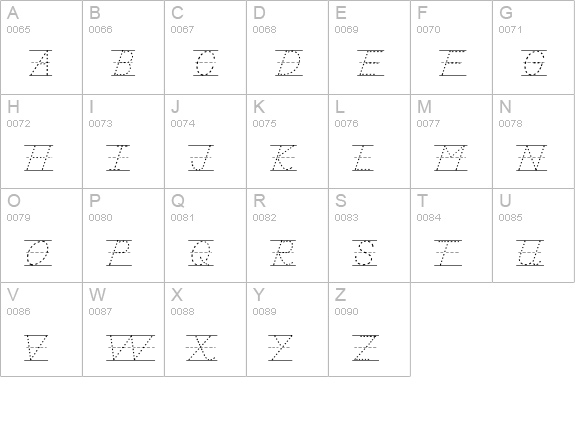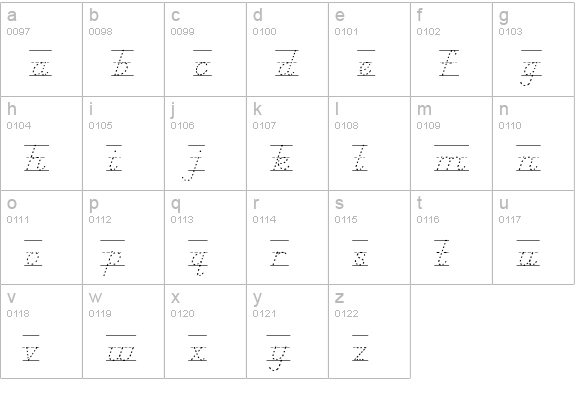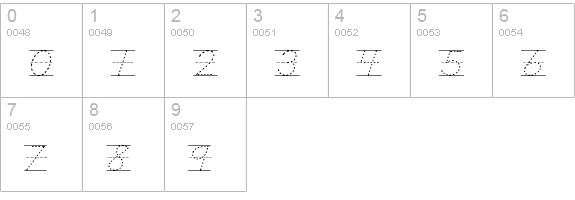
AbcDNManusDottedLined Font Details
The AbcDNManusDottedLined font is a charming and unique typeface designed to add a touch of creativity to your projects. Its playful dotted lines create a whimsical and hand-drawn look that is perfect for children's books, educational materials, or any design that calls for a fun and lighthearted feel. This font is freely available to download at FontsMarket.com, making it easily accessible for designers and creatives looking to add a special touch to their work without breaking the bank. Whether you're looking to create eye-catching headlines, playful logos, or engaging posters, the AbcDNManusDottedLined font is sure to make your designs stand out. Download it today and let your creativity run wild!